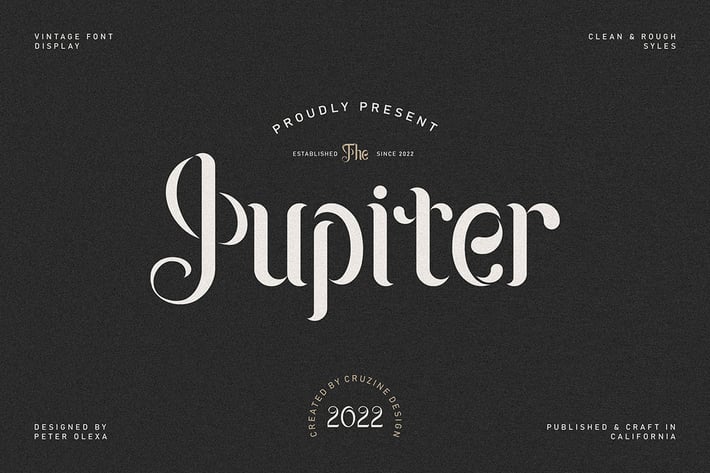
Jupiter Retro Font Family
Unique, artistic, fantasy, retro & vintage sans serif font family. Great for your new retro or clean branding project.
- 8 font styles
- Great for retro or modern style branding projects